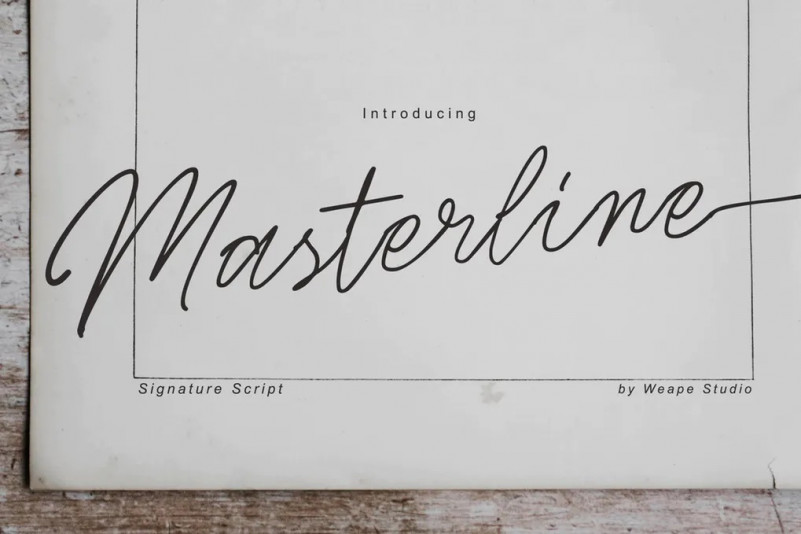
Masterline Font
Introducing Masterline Signature Script. This is a stylish modern calligraphy font with casual handwriting. It is perfect for branding, signature logo, wedding invitation, photography, and you can use and enjoy Masterline, for promotional material and anything.